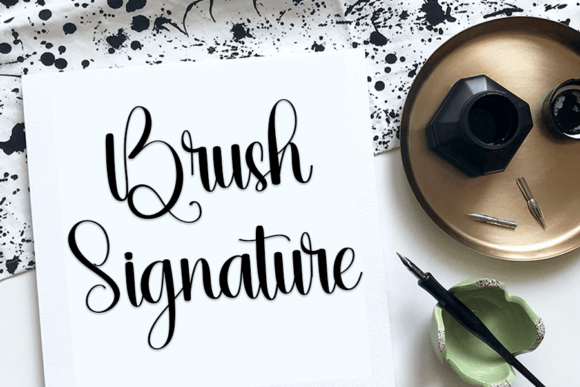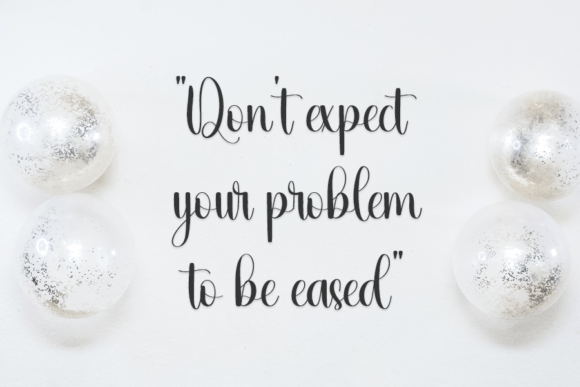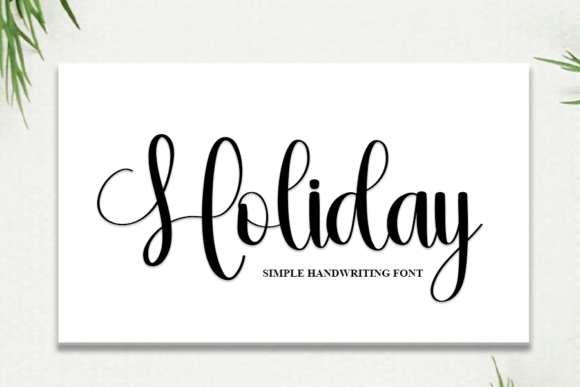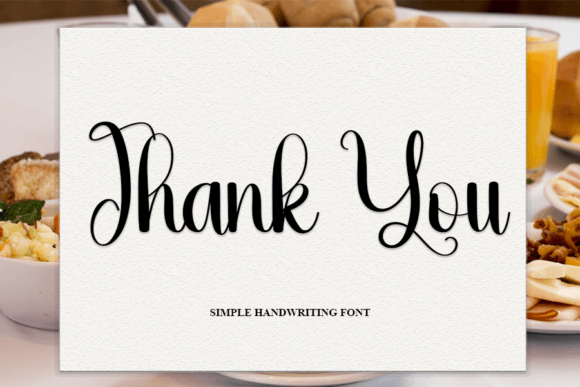
The Quest for the Perfect Font: Discovering Breast Font
I’ll never forget the time I was working on a project for a client who wanted a unique and cool design for their food product labels. I had spent hours browsing through font libraries, but nothing seemed to fit the vibe they were looking for. That’s when I stumbled upon Breast Font, a delicate handwritten font that caught my eye. In this article, I’ll share my experience with Breast Font, its features, and how to make the most of it in your designs.
A First Impression: What I Love About Breast Font
Breast Font is a carefully crafted handwritten font that exudes a sense of elegance and playfulness. Here are some things I love about it:
- ✨ Unique and delicate letterforms that add a touch of sophistication to any design
- 💕 Perfect for designs that require a personal and creative touch, such as invitations, letters, and food product labels
- 🎨 Great for use in titles, headings, and body text
While Breast Font is an excellent choice for many designs, there are a few quirks to be aware of:
- 🤔 Limited character set: Breast Font may not have all the characters you need for a specific project
- ⚠️ May not be suitable for very large or very small font sizes due to its delicate nature
The Story Behind Breast Font
Breast Font was designed with the intention of creating a unique and delicate handwritten font that could be used for a variety of creative projects. The designer aimed to craft a font that would add a touch of elegance and playfulness to any design.
| Font Name | Breast Font |
| Author | ade studio |
- Q: What type of designs is Breast Font best suited for?
- A: Breast Font is perfect for designs that require a personal and creative touch, such as invitations, letters, food product labels, and titles.